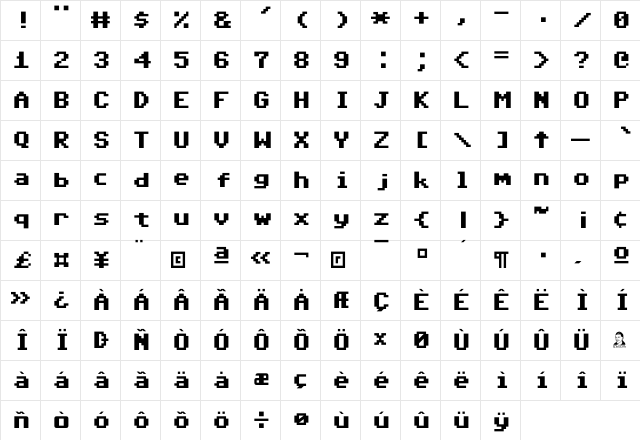
Commodore 64 Pixeled Regular Free Font
Commodore 64 Pixeled Regular
Design Context for Commodore 64 Pixeled
Commodore 64 Pixeled is rooted in pixel-grid construction, making it a natural fit for game UI, retro computing aesthetics, and digital nostalgia projects.
Pro Tip: Use Commodore 64 Pixeled at sizes that align with its pixel grid for the sharpest rendering - scaling to non-integer multiples can introduce unwanted blur.